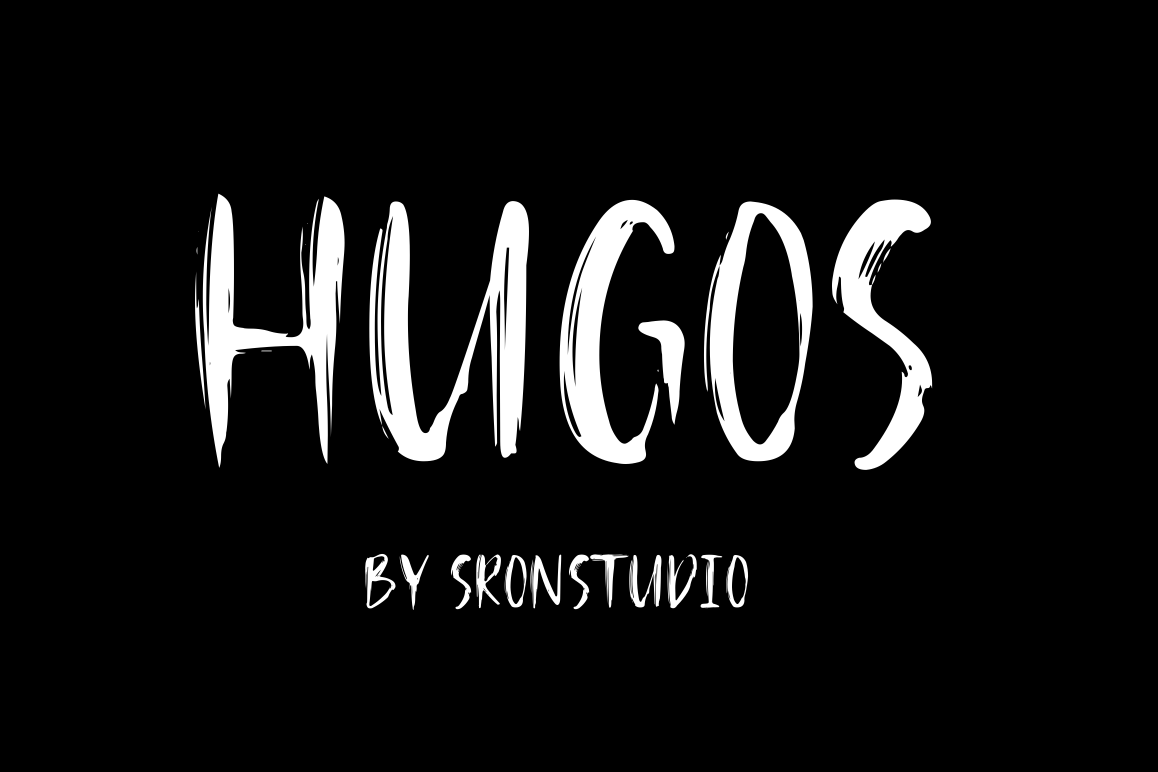
HUGOS
Introducing Hugos- Handbrush Font
Hugos is a natural handbrused font, this font Is perfect for logo,social media posts, advertisements, product packaging, product designs, label, special events or anything.
Hugos is all caps font its only comes with full set of uppercase , multilingual symbols, numerals, punctuation.